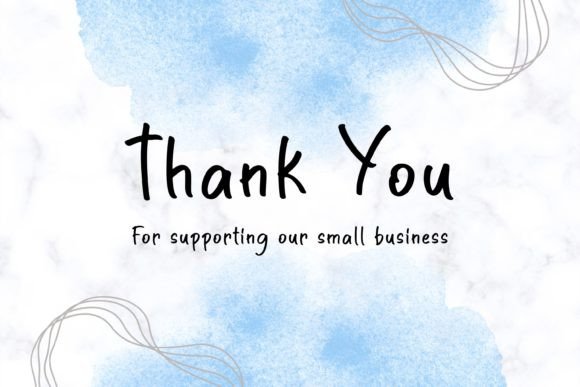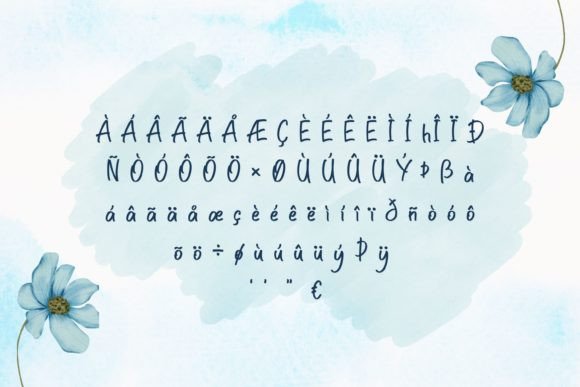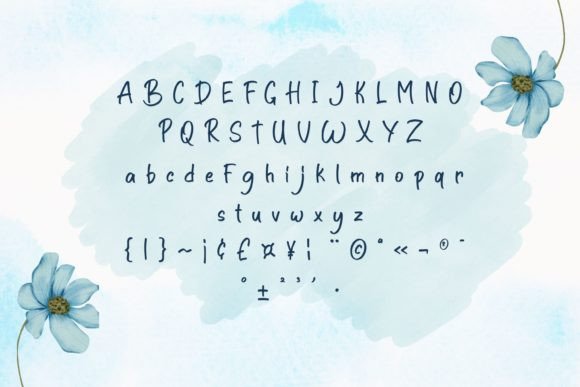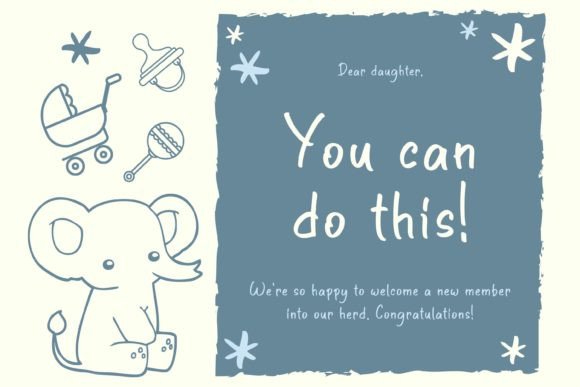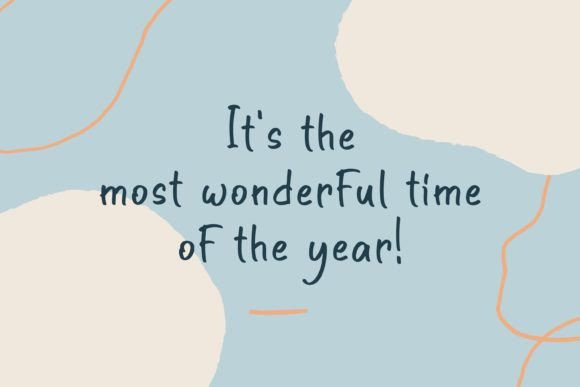
Givalla Font: Adding a Touch of Handwritten Charm to Your Designs
In the world of typography, fonts play a crucial role in conveying the tone and personality of a message. For designers and crafters looking to add a personal touch to their work, Givalla Font is an excellent choice. This beautiful font emulates the charm and creativity of handwritten text, making it perfect for a variety of projects, from invitations and posters to digital artwork.
The Unique Characteristics of Givalla Font
Givalla Font is designed to mimic the natural flow and imperfections of handwritten text. Its unique characteristics include:
- Handwritten style: Givalla Font has a distinctly handwritten feel, with varying letterforms and a relaxed, organic look.
- Legibility: Despite its handwritten nature, Givalla Font remains highly legible, making it suitable for both short and long texts.
- Expressiveness: The font’s varied letterforms and subtle imperfections give it a high level of expressiveness, allowing designers to convey emotion and personality through their text.
Uses for Givalla Font
Givalla Font’s versatility makes it an excellent choice for a wide range of projects, including:
- Invitations: Add a personal touch to wedding invitations, birthday party invites, and other special occasion cards.
- Posters: Create eye-catching posters for events, promotions, or advertisements with Givalla Font’s bold and expressive lettering.
- Digital Artwork: Use Givalla Font to add a handwritten element to your digital artwork, such as illustrations, graphics, and social media posts.
- Branding: Incorporate Givalla Font into your brand identity to add a touch of warmth and personality to your logo, packaging, or marketing materials.
Tips for Using Givalla Font Effectively
To get the most out of Givalla Font, follow these tips:
- Keep it simple: Balance Givalla Font with simpler fonts to avoid visual overload.
- Experiment with colors: Play with different colors to find the perfect match for your design.
- Vary font sizes: Use different font sizes to create visual hierarchy and emphasize important text.
Why Designers and Crafters Love Givalla Font
Designers and crafters rave about Givalla Font for its:
- Uniqueness: Givalla Font’s handwritten style sets it apart from more traditional fonts.
- Flexibility: The font’s versatility makes it suitable for a wide range of projects and applications.
- Emotional connection: Givalla Font’s expressive lettering helps designers create an emotional connection with their audience.
Givalla Font is a beautiful and versatile font that can add a touch of handwritten charm to any design project. Its unique characteristics, expressiveness, and legibility make it an excellent choice for designers and crafters looking to create eye-catching and engaging work. Whether you’re creating invitations, posters, or digital artwork, Givalla Font is sure to make your text stand out and capture attention.